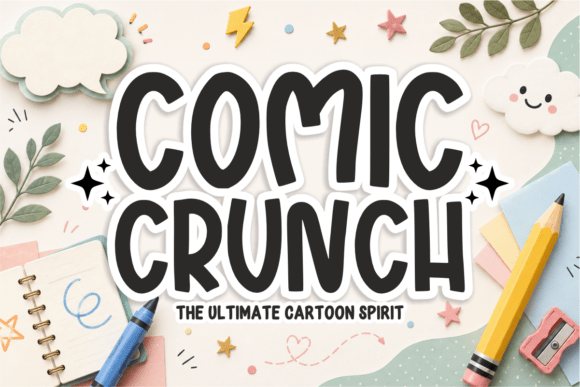
Adenman Posted 5 hours ago Share Posted 5 hours ago ✨ Bring your designs to life with “the ultimate cartoon spirit” of “Comic Crunch”! ✨ Comic Crunch is a wonderfully bold, punchy, and energetic display font designed to give your creative projects an instant pop-art burst! Inspired by classic comic books and cheerful animated styles, this blocky yet rounded typeface is full of character, bounce, and expressive fun. It’s the perfect way to make titles, quotes, and layouts stand out with maximum impact. 🌟 Perfect For: Comic Strips, Graphic Novels, & Cartoon Books 📚 YouTube Thumbnails & Social Media Graphics 🎬 Kids’ Graphic Tees, Hoodies & Apparel Sublimation 👕 Custom Sticker Packs, Die-Cut Labels & Decals 🎒 Children’s Birthday Party Invitations & Event Decor 🎂 School Posters, Kindergarten Worksheets & Teacher Assets ✏️ Playful Toy Packaging, Game Logos & Branding Projects 🧸 Giveaway Link –> https://www.creativefabrica.com/product/comic-crunch-3/ npo33770 and phen0men4 1 1 Quote Link to comment Share on other sites More sharing options...